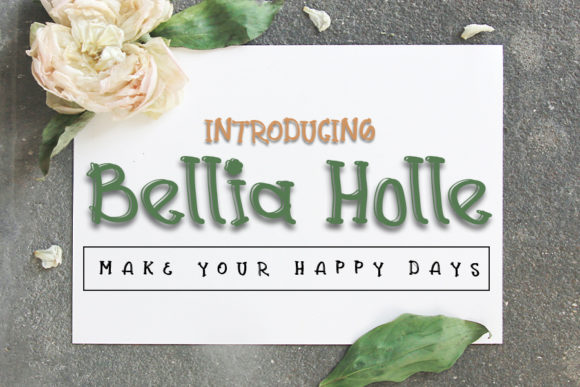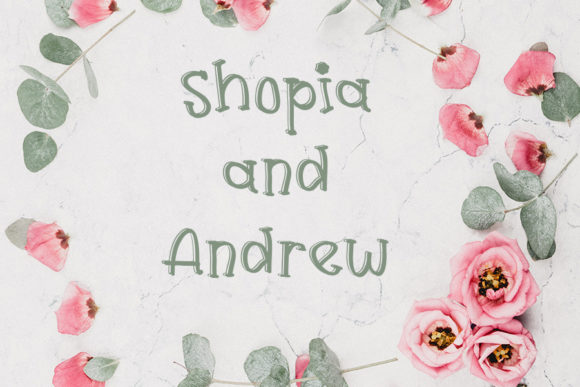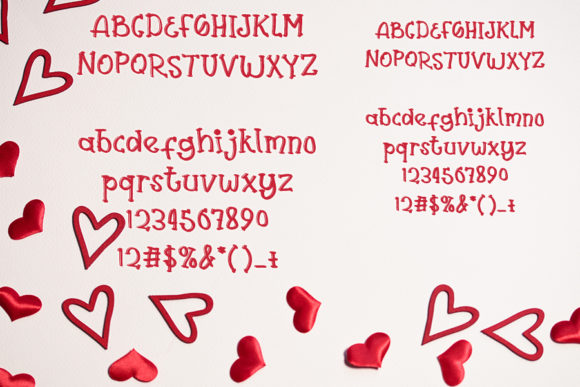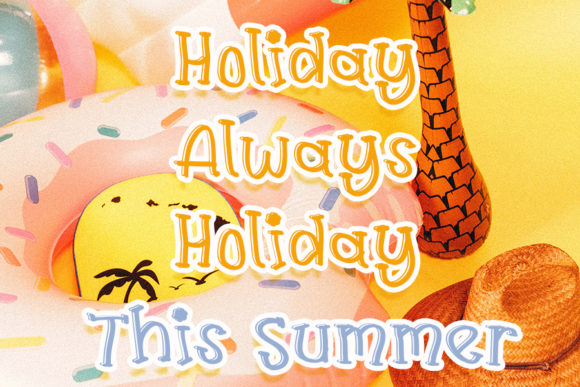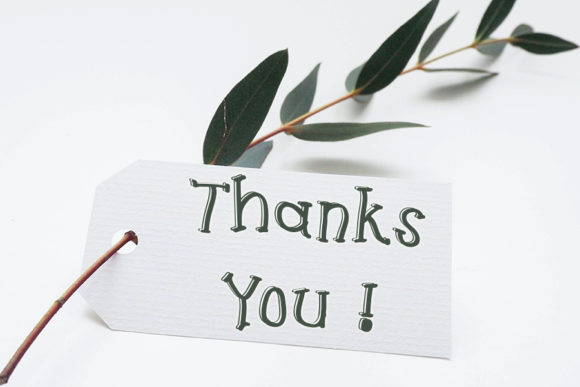
About Bellia Holle Font
Bellia Holle is a modern and flowing handwritten font. It looks stunning on wedding invitations, thank you cards, quotes, greeting cards, logos, business cards and every other design which needs a handwritten touch.